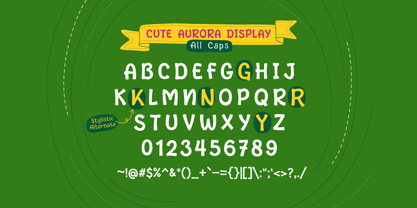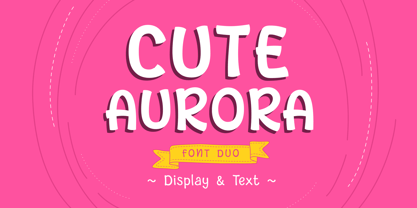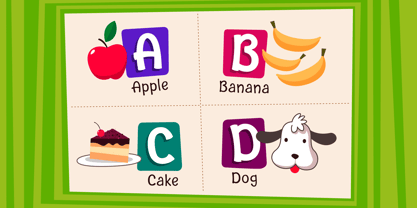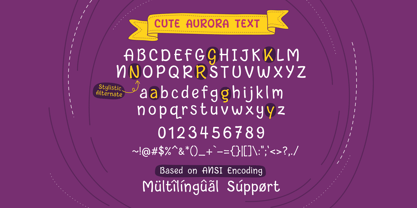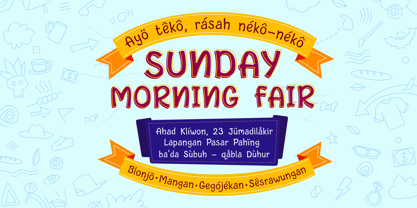
Cute Aurora
par 611 Studio
La famille de polices Cute Aurora a été conçue par Rijal Muttaqin et publiée par 611 Studio. Cute Aurora contient 2 styles et options de package familial. En savoir plus sur cette famille
• Cute Aurora (Text) Regular
• Cute Aurora (Display) Bold
Meet Cute Aurora — a font designed to transform everyday text into a colorful, whimsical adventure! Bursting with warmth and youthful energy, this typeface perfectly captures the innocent charm of childhood and the creative spirit of teenage dreams.
Cute Aurora embodies a playful personality and childlike wonder. By seamlessly blending bold and regular weights, it creates a dynamic, hand-drawn rhythm on the page. The bold strokes provide a friendly pop of emphasis, while the regular lines maintain a light, breezy, and effortlessly readable appearance.
Children’s Storybooks:
Make characters bounce off the page with headings and titles that ignite imagination.
Cute-Themed Designs:
Ideal for birthday party invitations, nursery decor, stickers, and delightful branding projects.
Schoolbooks & Worksheets:
Keep young learners engaged with a clean, welcoming, and non-intimidating look.
Teen & YA Novels:
Perfect for casual book covers, journal-style layouts, and lively chapter headers.
Combine Cute Aurora’s bold and regular styles in your headlines to create an instant, eye-catching visual hierarchy that feels custom-crafted!